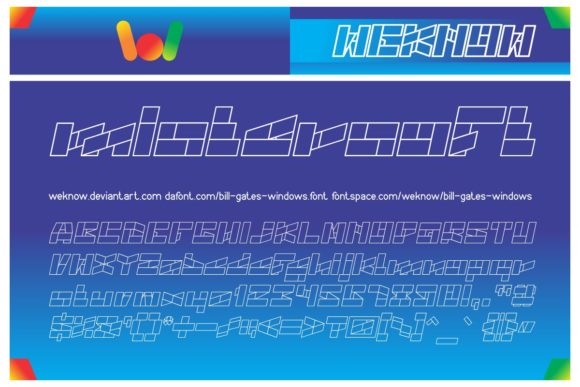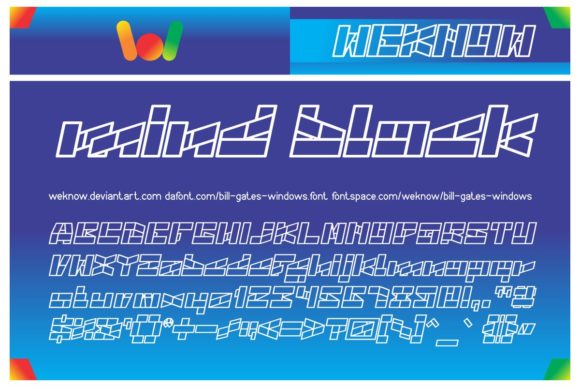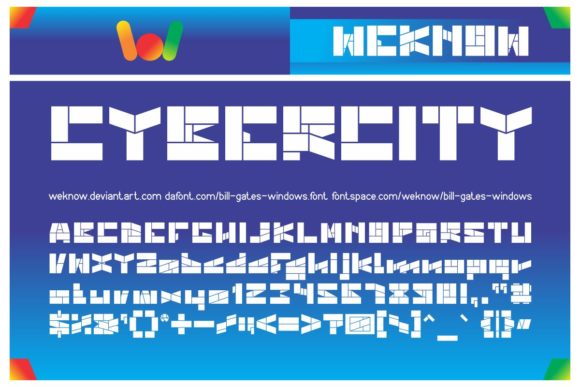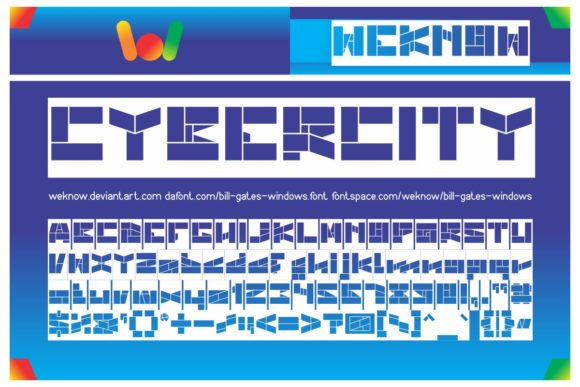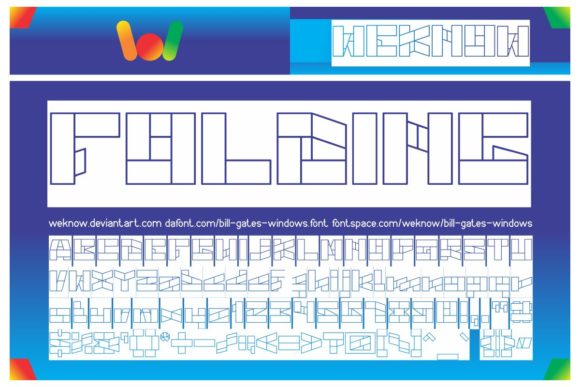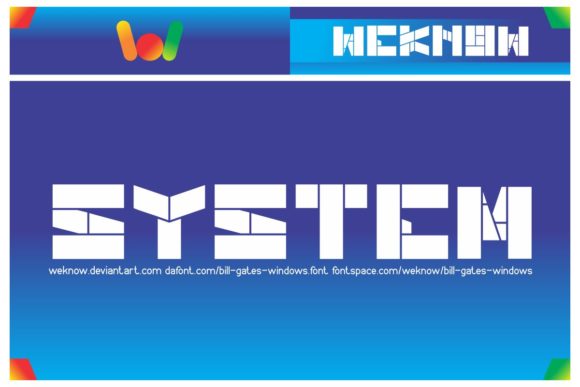
Introducing Big Windows Font: The Ultimate Techno-Themed Display Font
Are you looking for a font that screams futuristic and mechanical? Look no further than Big Windows Font! This blocky, techno-themed display font is perfectly suited for any project that requires a bold and edgy look. In this article, we’ll dive into the features and benefits of Big Windows Font, and explore how it can elevate your designs to the next level.
What is Big Windows Font?
Big Windows Font is a display font designed to make a statement. Its blocky, geometric shape and techno-themed aesthetic make it perfect for projects that require a futuristic and mechanical look. The font is highly legible, even at large sizes, making it ideal for headlines, titles, and other display text.
Key Features of Big Windows Font
- Blocky and Geometric Shape: Big Windows Font features a unique blocky and geometric shape that gives it a futuristic and mechanical look.
- Techno-Themed Aesthetic: The font’s techno-themed aesthetic makes it perfect for projects that require a bold and edgy look.
- Highly Legible: Big Windows Font is highly legible, even at large sizes, making it ideal for headlines, titles, and other display text.
- Versatile: The font is versatile and can be used for a wide range of projects, from posters and flyers to websites and social media graphics.
Benefits of Using Big Windows Font
- Adds a Futuristic Touch: Big Windows Font adds a futuristic touch to any project, making it perfect for projects that require a bold and edgy look.
- Increases Legibility: The font’s highly legible design ensures that your text is easy to read, even at large sizes.
- Versatile: Big Windows Font is versatile and can be used for a wide range of projects, from posters and flyers to websites and social media graphics.
In conclusion, Big Windows Font is a blocky, techno-themed display font that is perfectly suited for any mechanical and futuristic project. Its highly legible design, versatile nature, and ease of use make it a must-have font for designers and crafters. Whether you’re creating a poster, website, or DIY craft, Big Windows Font is sure to add a bold and edgy touch to your project.